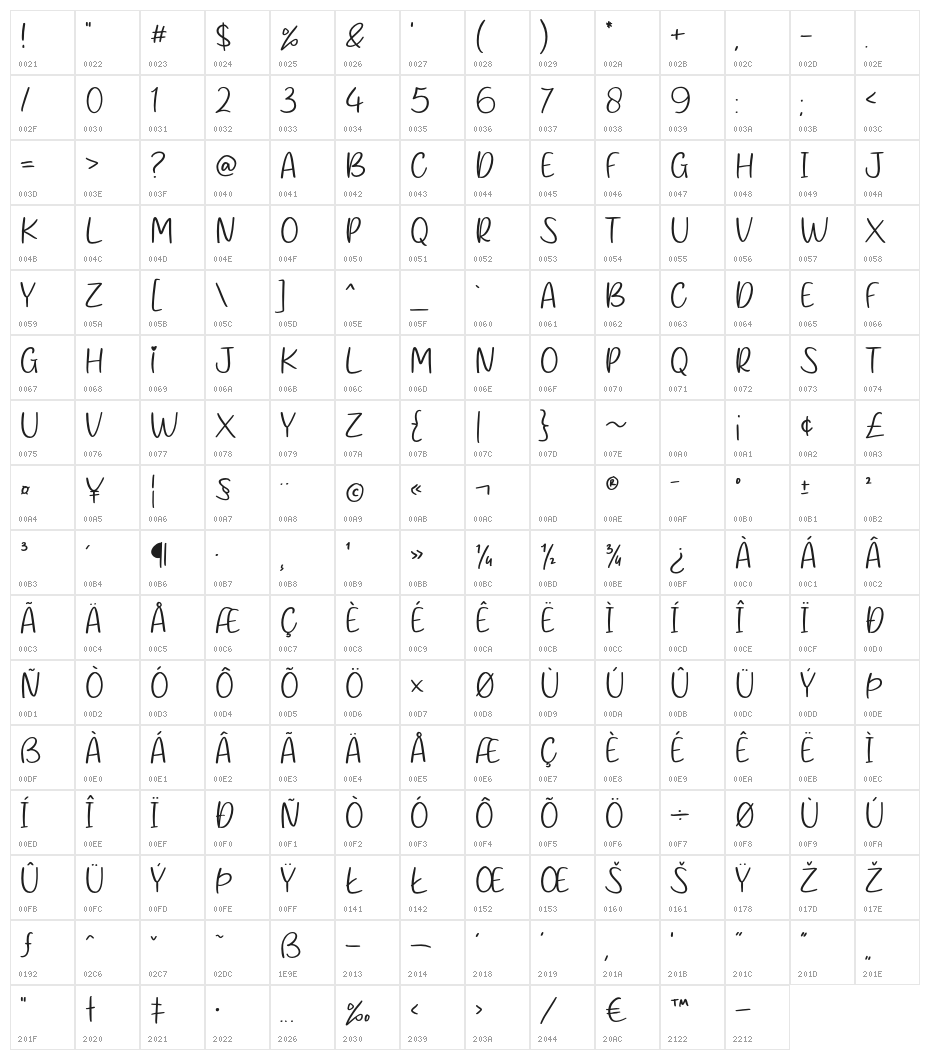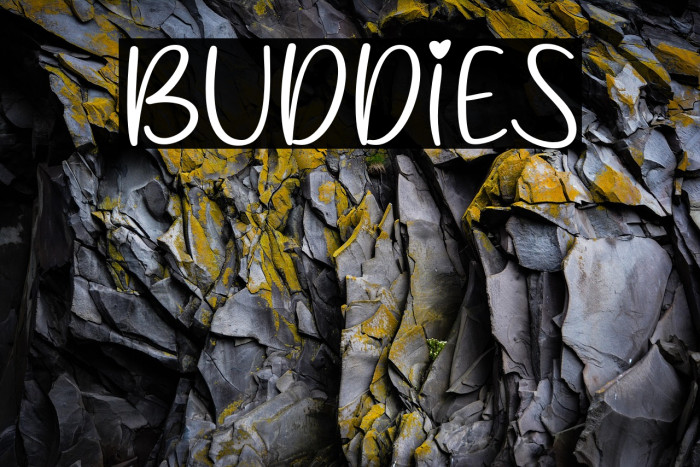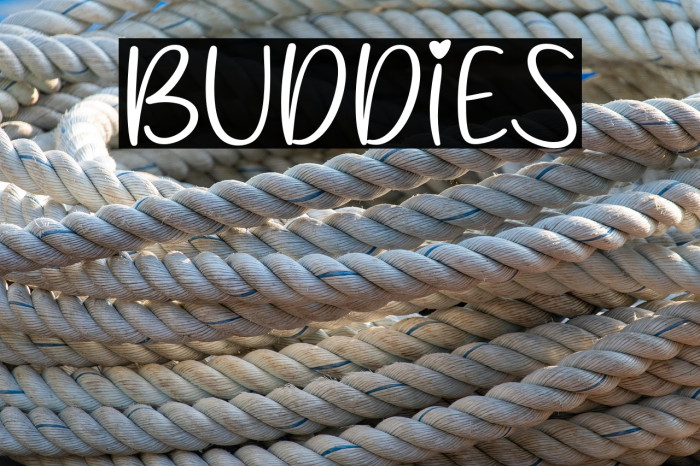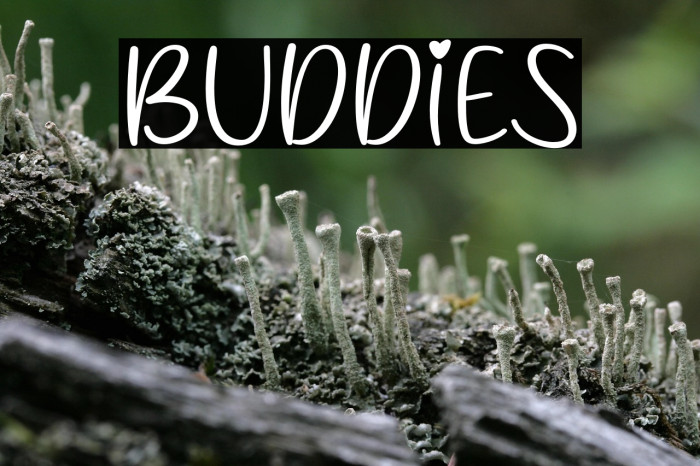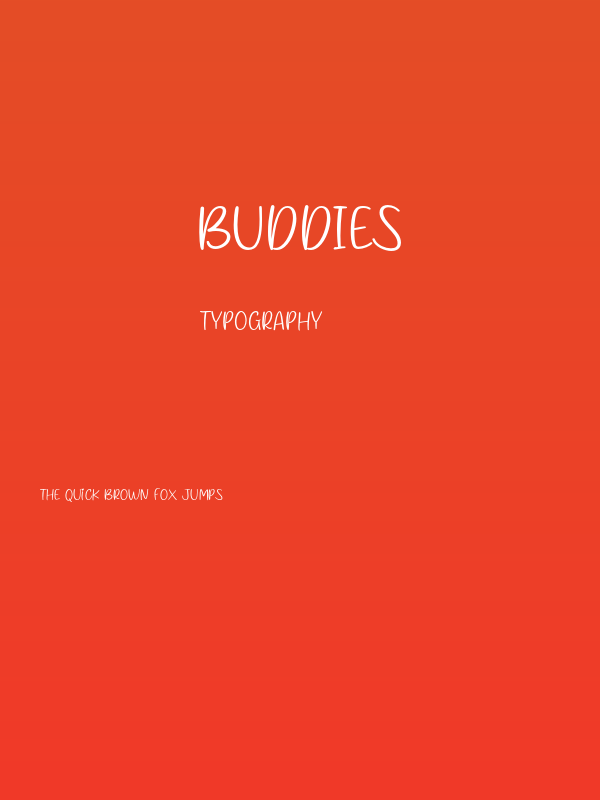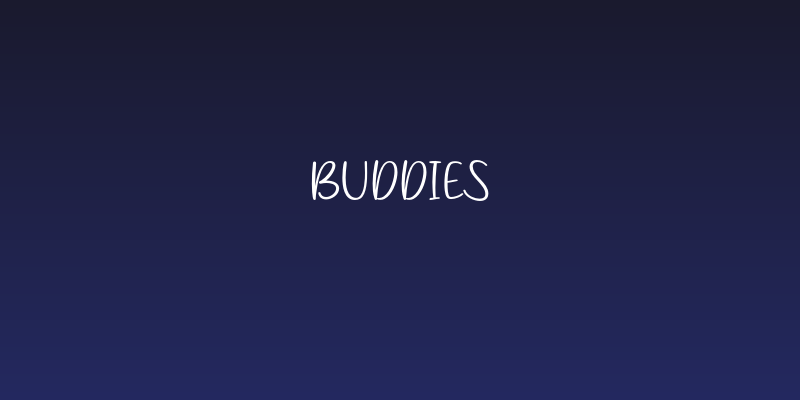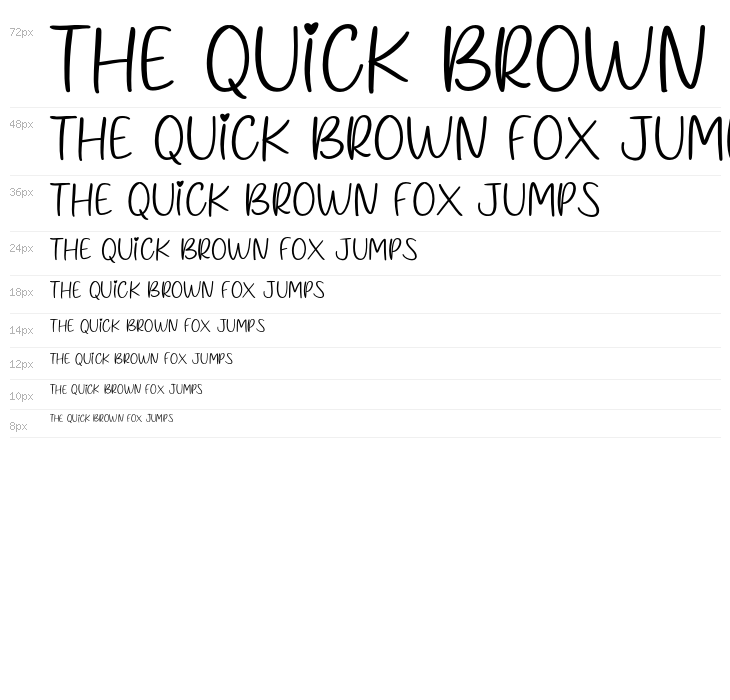
Buddies Font
Buddies Description
This playful and casual font exudes a handwritten charm, characterized by its smooth, flowing curves and slightly irregular strokes. The letters are crafted with a personal touch, giving them a friendly and approachable appearance. The uppercase and lowercase characters maintain a consistent style, with rounded edges and a slight slant that adds to the informal feel. The numerals and special characters are equally whimsical, fitting seamlessly with the overall aesthetic. This font's design is perfect for projects that require a personal, human touch, such as greeting cards, invitations, or playful branding.
| Use Case | Headlines, Invitations, Personal projects |
| Proposed Projects | Ideal for greeting cards, invitations, playful branding, and personal projects. |